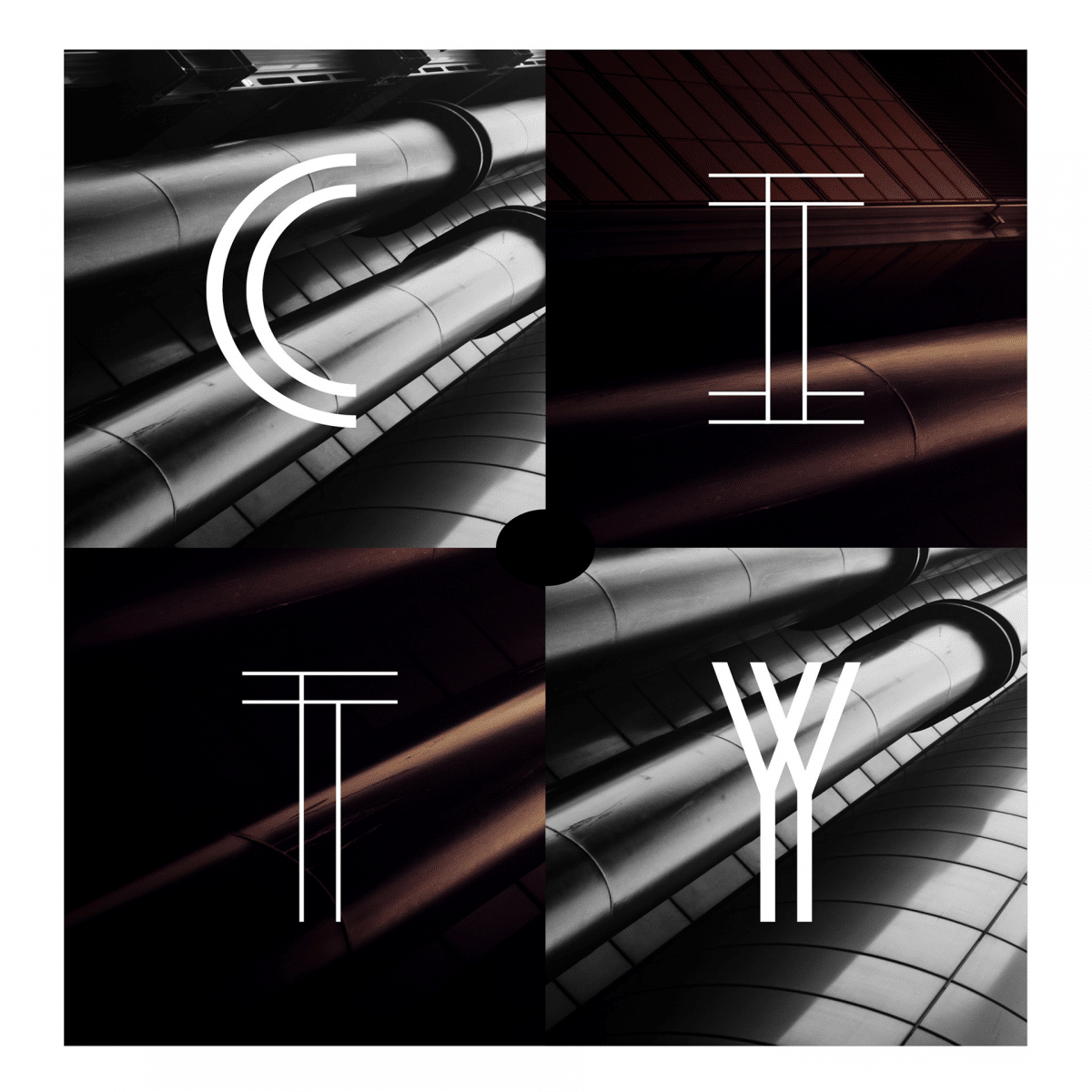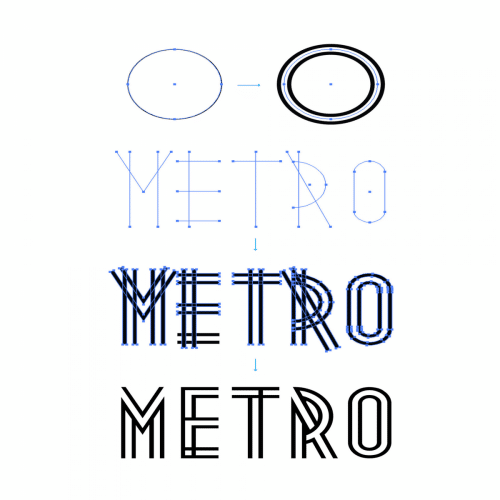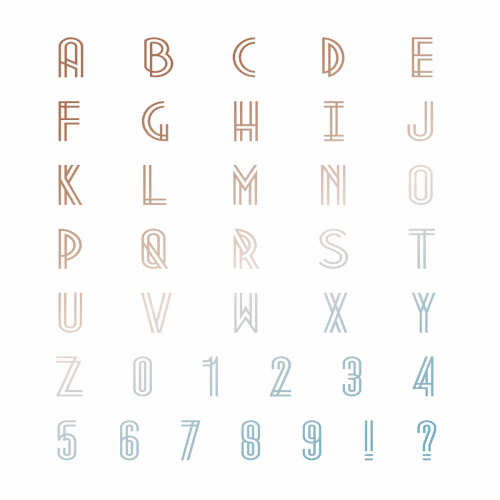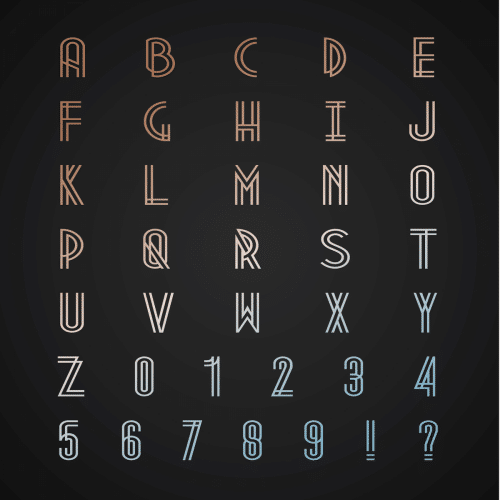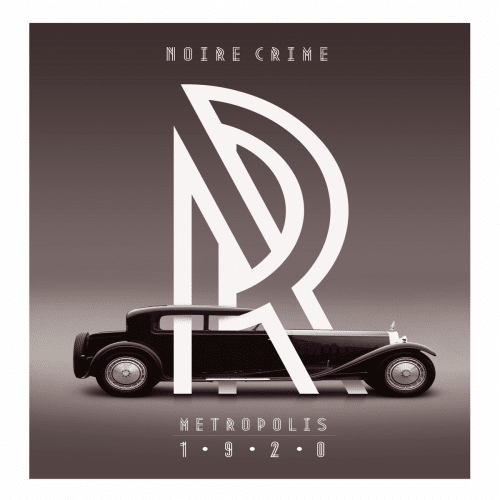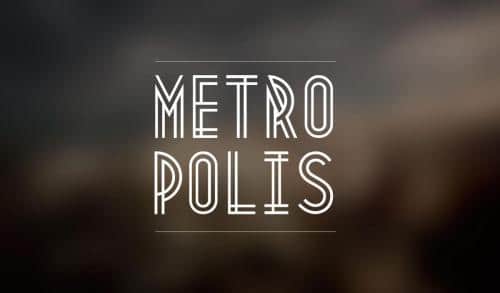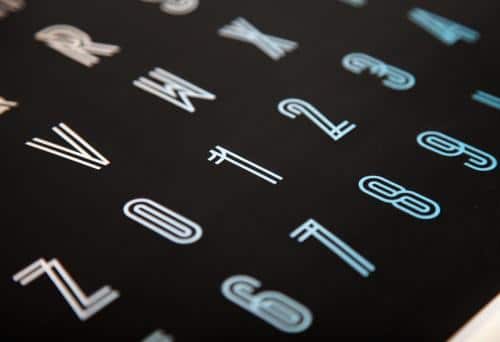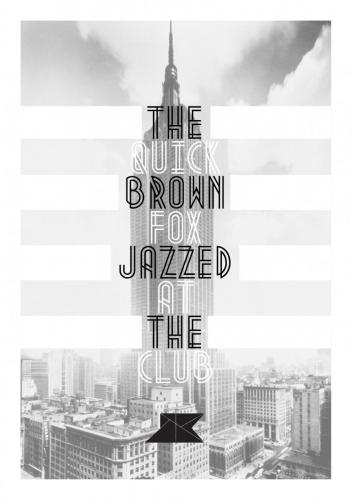
Metropolis 1920 comes from the industrial movement of the 1920’s where skyscrapers where born. Using a double line technique, the author create his own Art Deco style font that represented this era. The result is a bold, bumptious typeface with a stolidly calm disposition.
- Designer: Josip Kelava